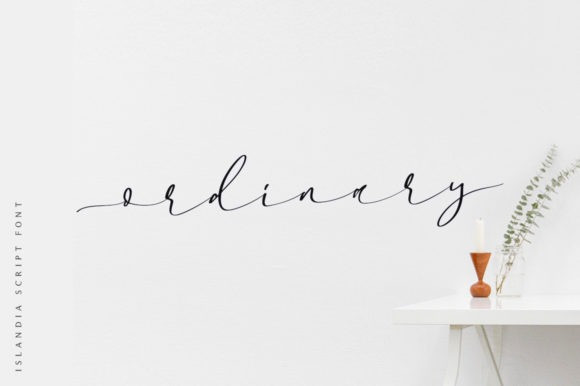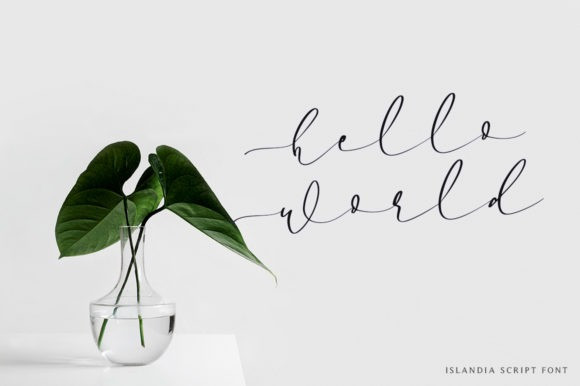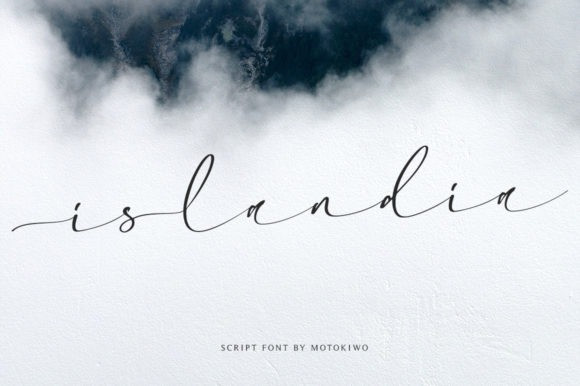
Islandia Handwritten Font
Islandia Handwritten Font is simple script font with wide characters. It’s a relaxing font that can give your designs a calming look & feel!